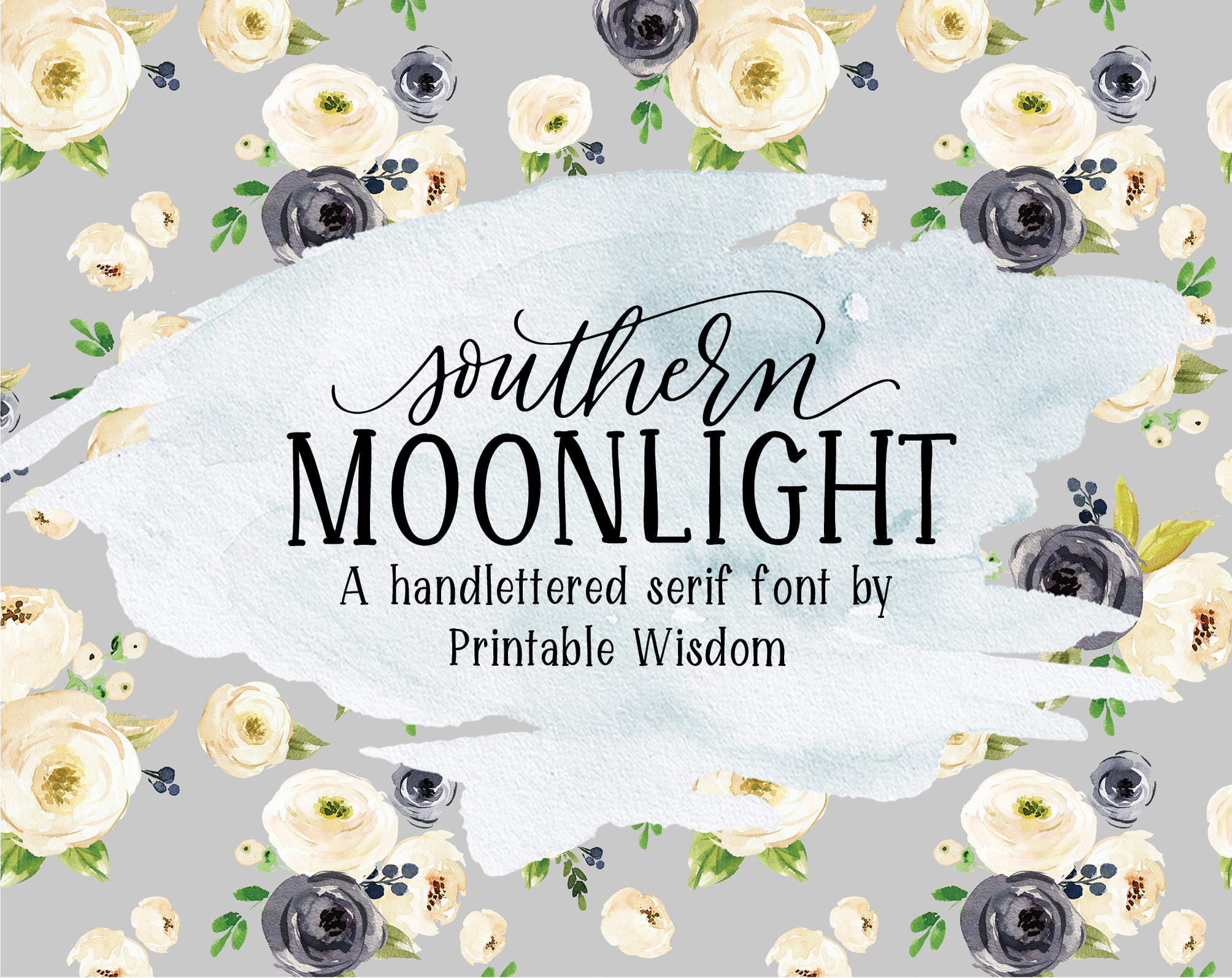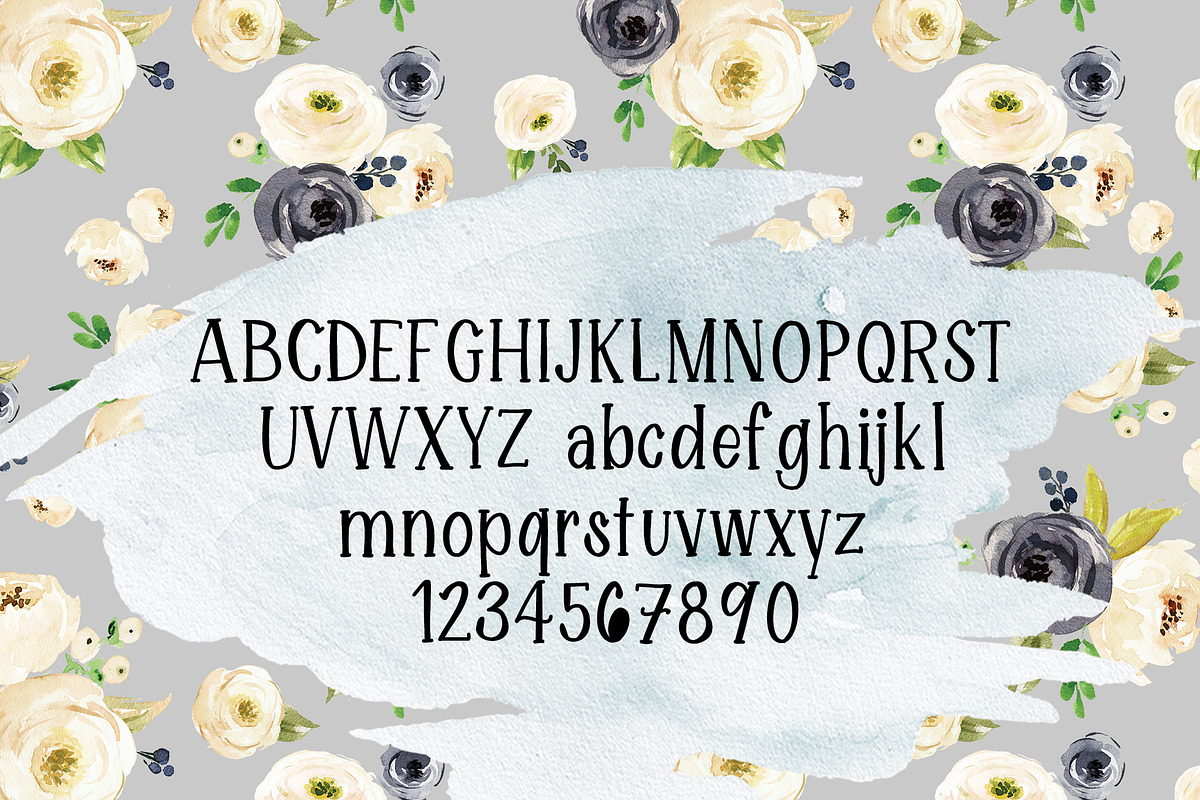
Southern Moonlight Font
"Southern Moonlight" was completely hand written with gorgeous serifs, giving your artwork a refined but hand crafted look. (the word "southern" in the image above was hand lettered and is not a font)
All punctuation and numbers included (along with a gorgeous ampersand!).